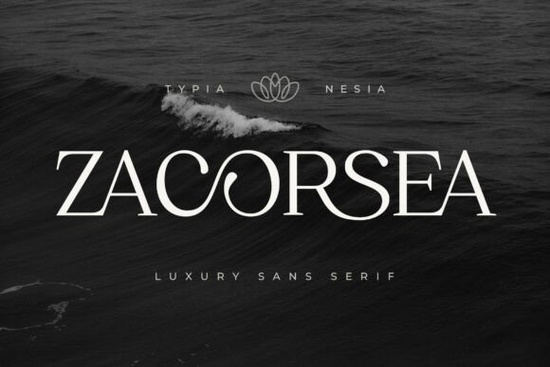
If you're looking for a serif font that feels both modern and timeless especially for beauty branding, wedding stationery, or luxury packaging Zacorsea Font is worth your attention. It’s not overly ornate, but it carries quiet confidence: soft curves, balanced spacing, and thoughtfully designed ligatures that flow naturally without looking forced. Designers and small business owners often tell us they chose Zacorsea because it works well at small sizes (like on cosmetic labels) and makes an impression large (think boutique window signage or Instagram story headers).
What kind of projects does Zacorsea work best for?
Zacorsea shines where elegance matters more than loudness. Think skincare brand names on glass dropper bottles, monogrammed linen napkins for weddings, or minimalist fashion tags with just a logo and tagline. It’s especially helpful if your brand voice leans toward calm sophistication not vintage charm or bold editorial energy. You’ll notice how the lowercase g, y, and z have gentle, open shapes that keep readability high, even in thinner weights or light-colored ink on cream paper.
It also pairs well with clean sans-serifs for contrast try pairing it with a neutral typeface like Inter or Montserrat for body text while keeping Zacorsea for headlines or logos. That combination shows up often in successful print-on-demand shops selling premium greeting cards or digital wedding templates.
How does Zacorsea compare to other elegant serifs on Creative Fabrica?
Like Aveloire, Zacorsea has strong feminine energy but Aveloire leans slightly more romantic and calligraphic, while Zacorsea feels more architectural and refined. If you’re drawn to subtle luxury over dramatic flourishes, Zacorsea may suit your aesthetic better.
Stanza shares Zacorsea’s modern serif foundation but has tighter letter spacing and a more structured rhythm great for editorial layouts or book covers where consistency matters most. Zacorsea breathes a little more, which helps it feel softer and more approachable in consumer-facing designs.
For designers who want flexibility across multiple projects, the Aesthetic Elegant Bundle includes Zacorsea alongside complementary fonts like Biges. Biges brings bolder contrast and sharper terminals ideal when you need a secondary headline font that still fits the same luxury family. Using them together gives you visual hierarchy without clashing moods.
What do real users say about using Zacorsea?
A few small business owners shared how Zacorsea helped them stand out:
- A handmade soap maker switched from a generic script font to Zacorsea for her product labels and saw a 20% increase in “premium” comments from customers.
- A wedding invitation designer added Zacorsea to her template library and now uses it for 60% of bridal clients who ask for “elegant but not fussy.”
- A POD seller testing new t-shirt designs found Zacorsea worked surprisingly well on minimalist black-and-white apparel mockups especially for phrases like “breathe deep” or “soft light.”
One thing users consistently mention: Zacorsea doesn’t require heavy kerning adjustments. The default spacing holds up well across common design tools (Canva, Adobe Illustrator, Affinity Designer), and the OpenType features including standard and discretionary ligatures are easy to access without needing advanced typography knowledge.